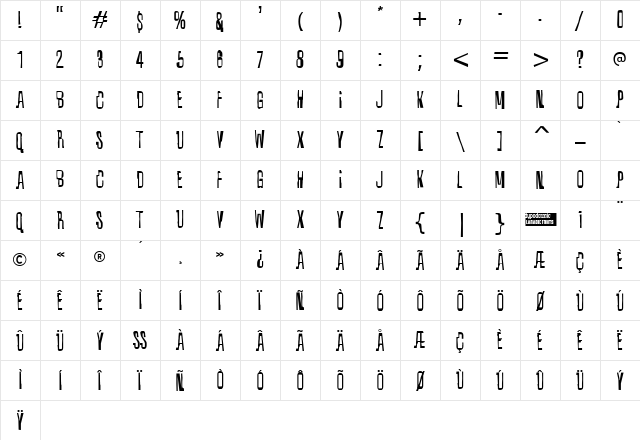
Quixotic Regular Free Font
Quixotic Regular
Design Context for Quixotic
Quixotic is a composed and adaptable typeface that performs quietly and consistently across a wide range of design contexts.